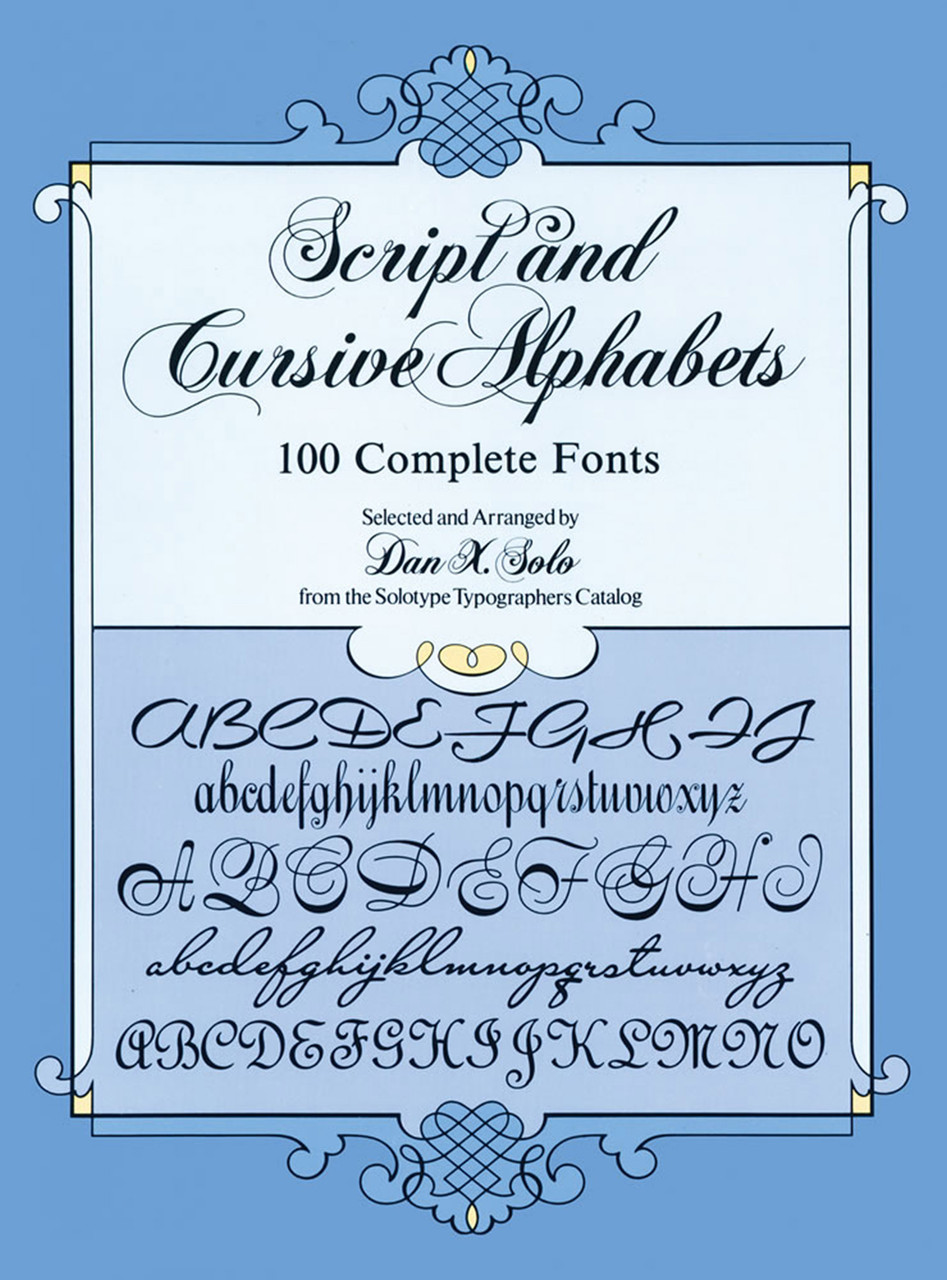
Script and Cursive Alphabets (100 Complete Fonts)
This treasury of script and cursive fonts offers graphic artists and designers a broad range of type styles that richly convey the elegant intricacies of hand lettering.
Here, in one compact, inexpensive volume compiled by a leading authority on typography are type designs capable of producing a multitude of special effects. Leaf through and you will quickly discover the eye-catching appeal of each typeface: the flowing elegance of Liberty; the sturdy formality of Piranesi Bold Italic; the airy, Art Deco flair of Hannover; the monogram-like quality of Juliet; the dazzle of Boulevard Script; the classical appeal of Virginia Antique. These beautiful designs, and scores more, are reproduced in complete uppercase alphabets. Ninety-two of them include lowercase alphabets as well, and eighty-nine include numerals.
In all, Script and Cursive Alphabets is an invaluable resource of typefaces that will lend a distinctive character and mood to your message. Here in this rich collection of fonts, from Back Script and Virtuoso Bold to Khayyam and Poppl Exquisit, you'll find the letter-perfect way to say it.